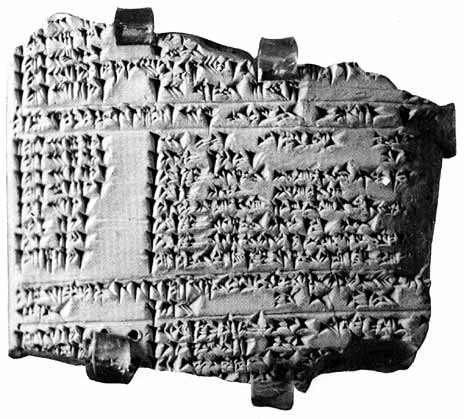
Sumerians created the first written language based on abstract signs around 3000 B.C.E. Imprints of the signs, called cuneiform, were made by pressing a wedge-shaped stylus into
wet clay.